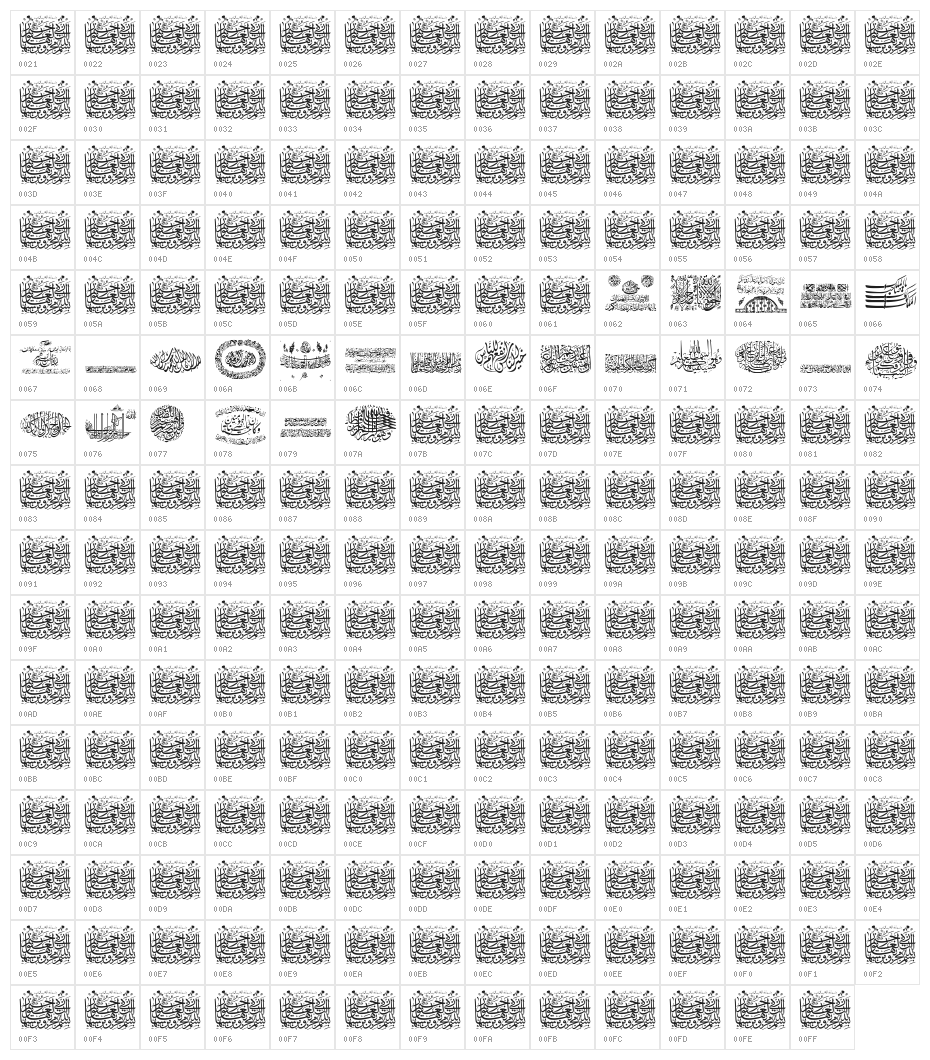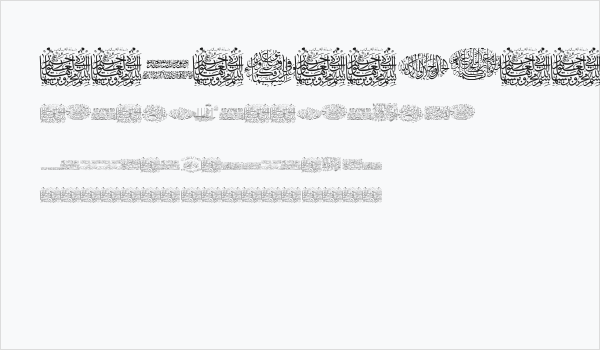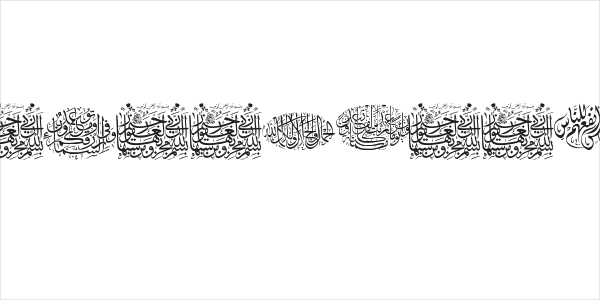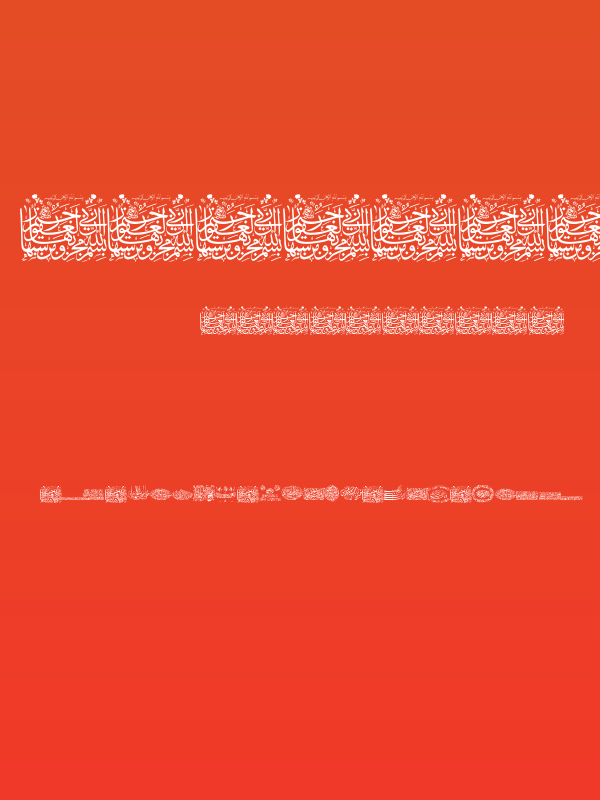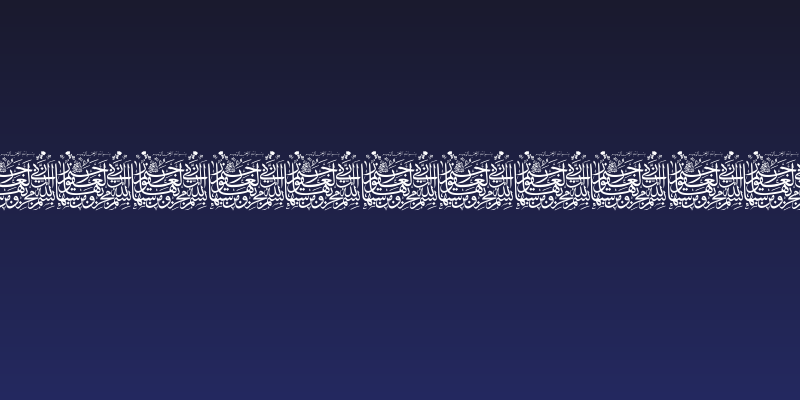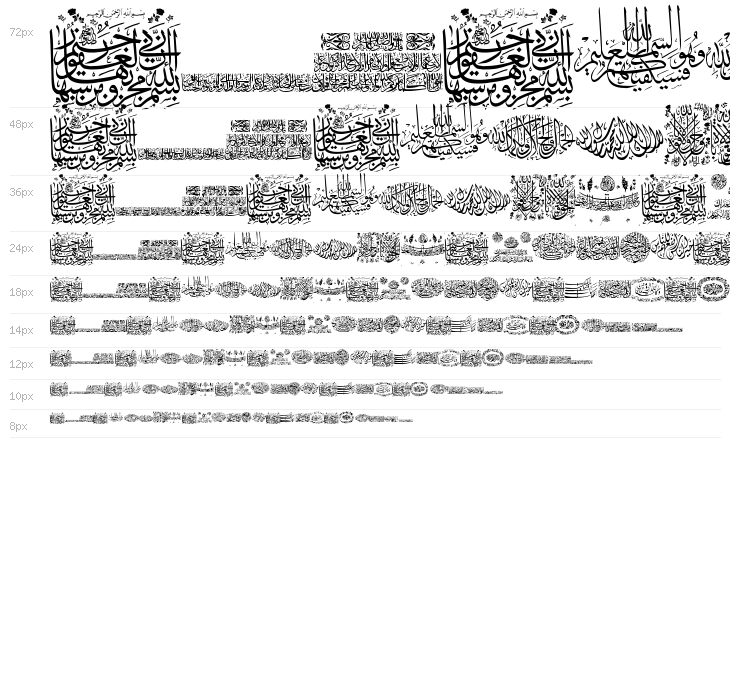
Aayat Quraan 12 Font
Aayat Quraan 12 Description
Highly decorative Arabic script with intricate calligraphic flourishes, dense composition, and ornamental elements, resembling traditional Islamic manuscript art. The glyphs are tightly packed, with elaborate swashes and diacritical marks, creating a visually rich and complex texture.
| Overall Style | Decorative, Traditional, Calligraphic |
| Use Case | Religious artwork, ceremonial headings, decorative panels |
| Proposed Projects | Religious texts, Quranic verses, Islamic art, ceremonial documents, decorative borders, cultural posters. |